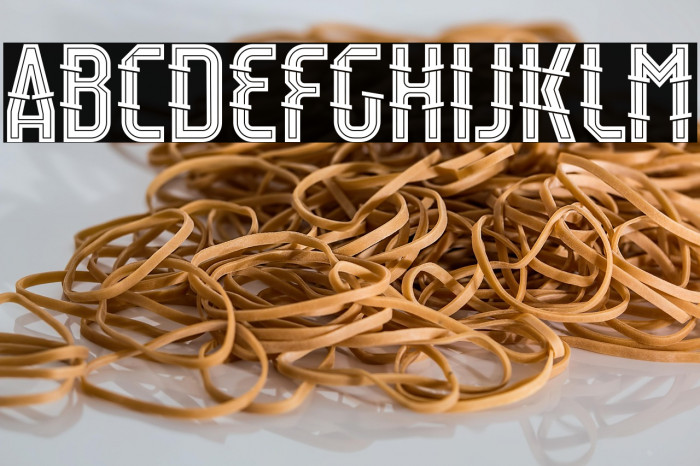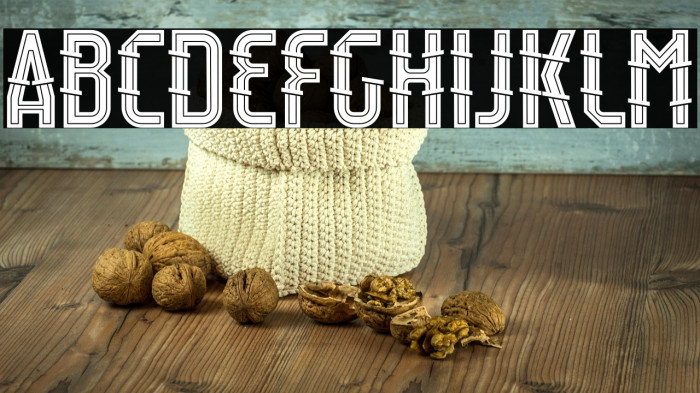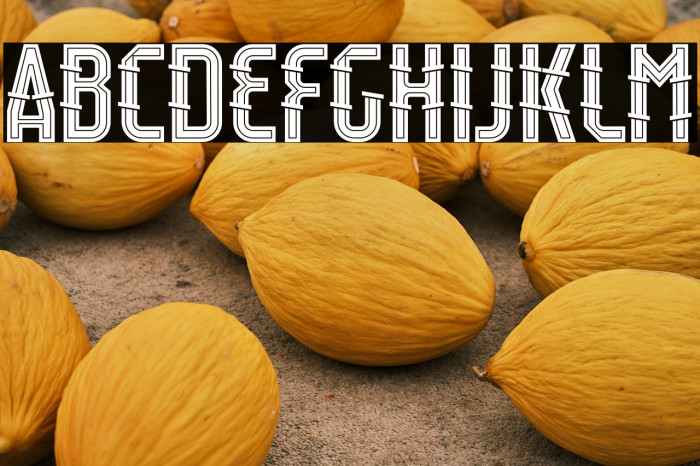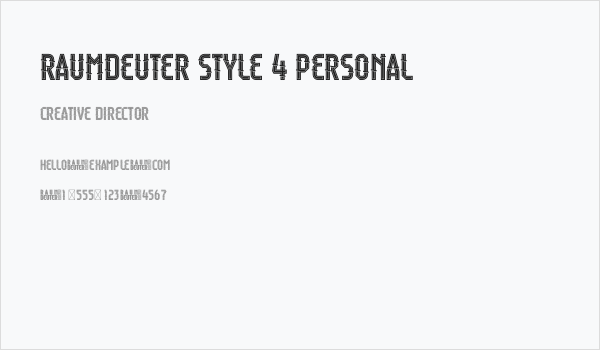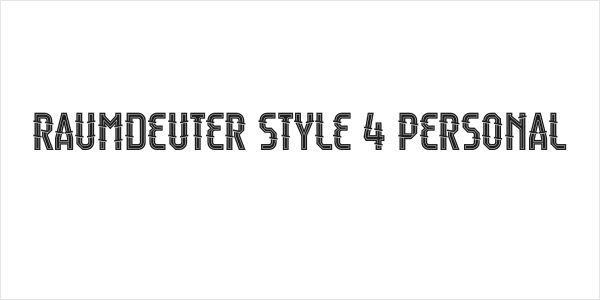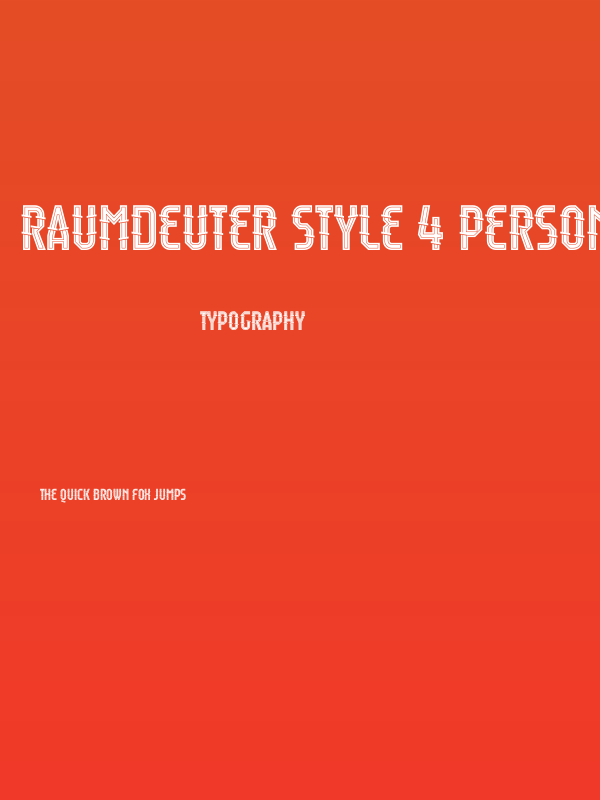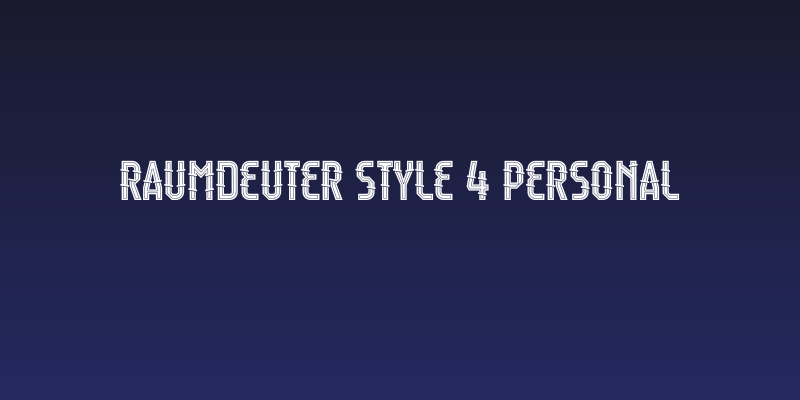
Raumdeuter Style 4 Personal Font
Raumdeuter Style 4 Personal Description
This font features a bold, geometric design with a distinct industrial feel. The characters are outlined with a double line structure, creating a layered effect that adds depth and dimension. The angular shapes and sharp edges give it a futuristic and mechanical appearance. The font's unique style is accentuated by the use of horizontal and vertical lines that intersect the characters, enhancing its technical and modern aesthetic. It is highly stylized, making it ideal for projects that require a strong visual impact.